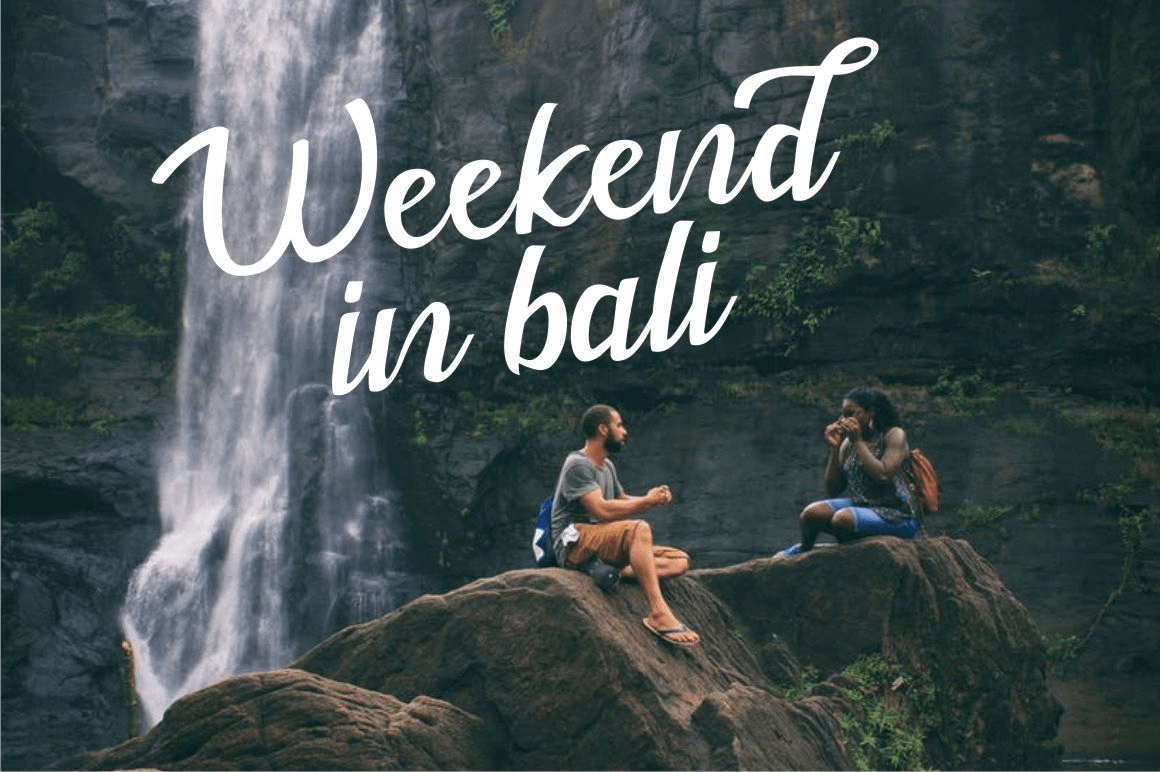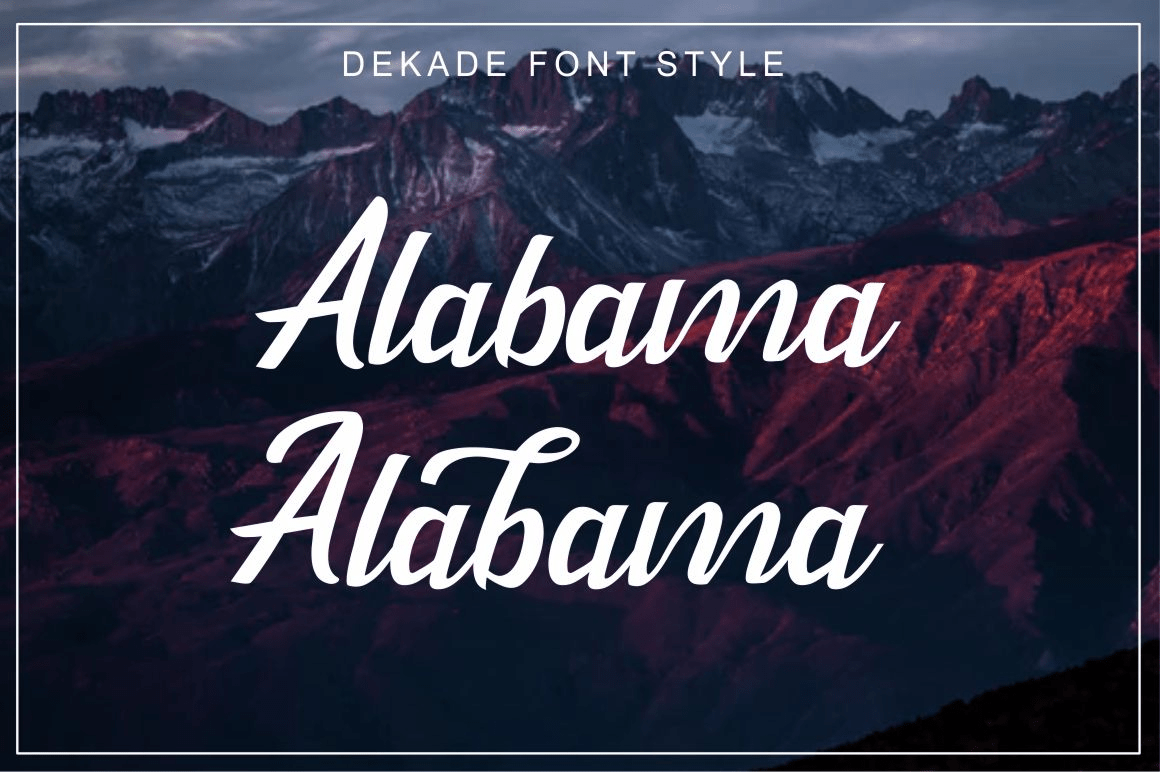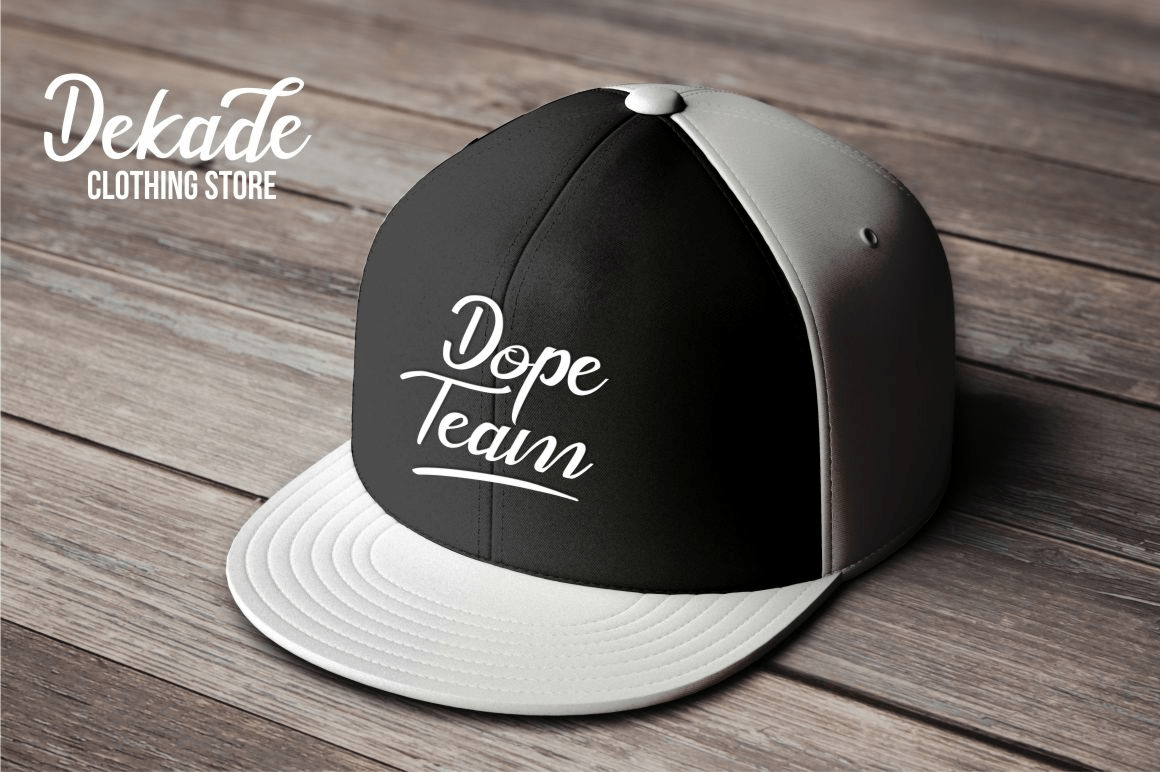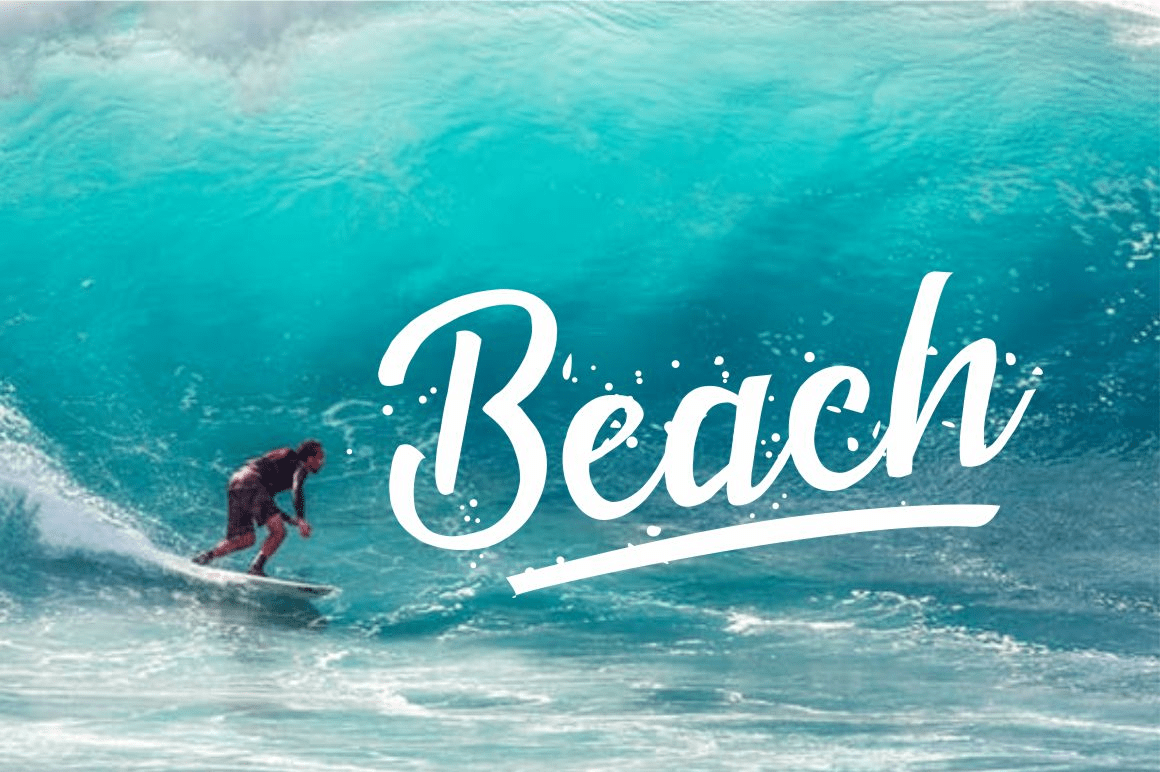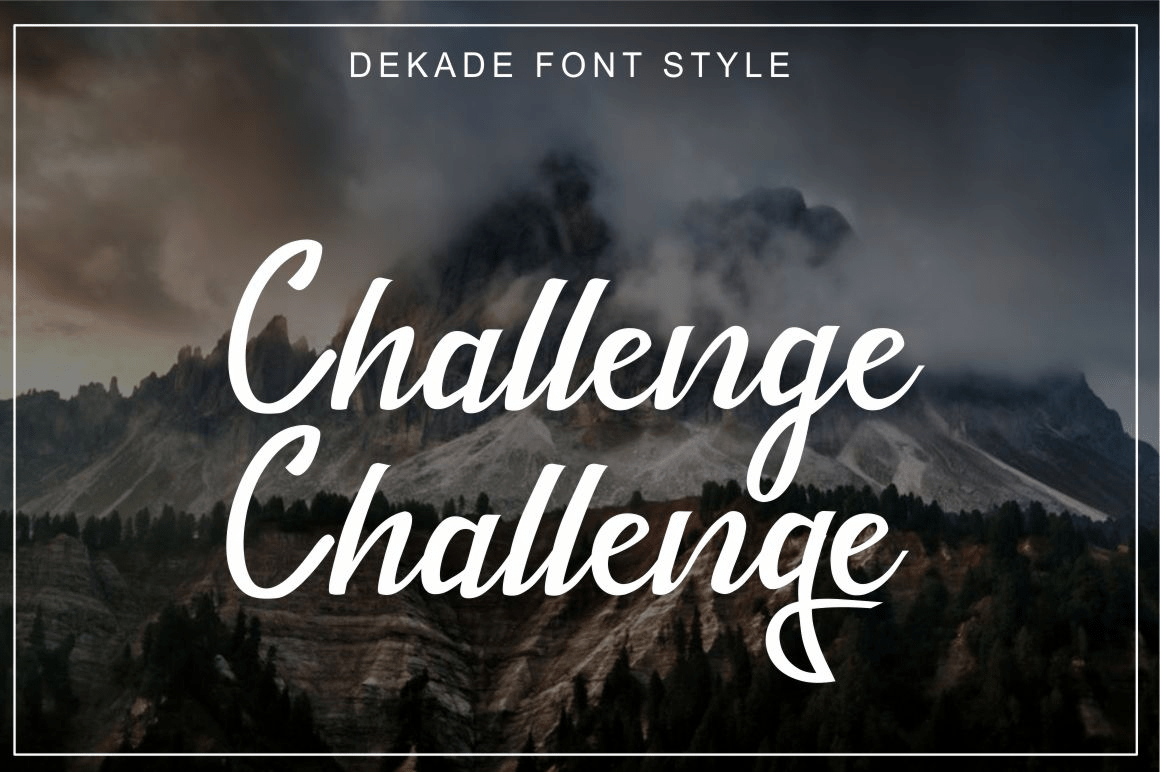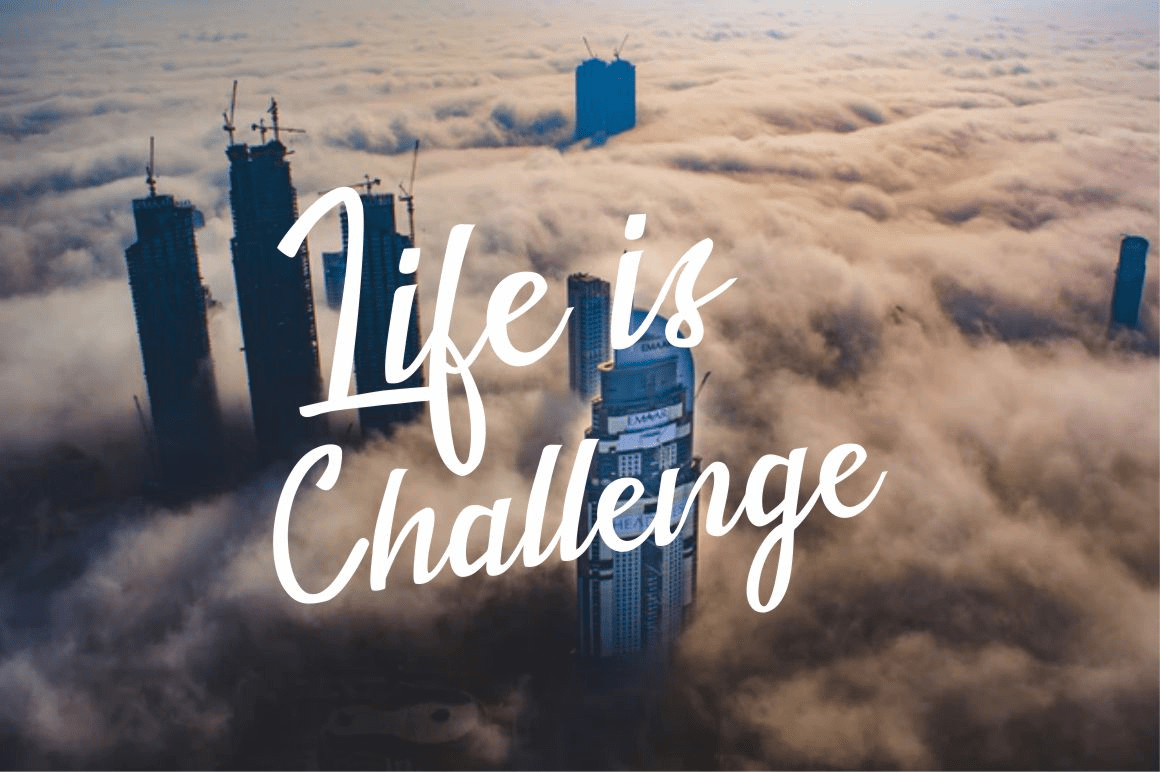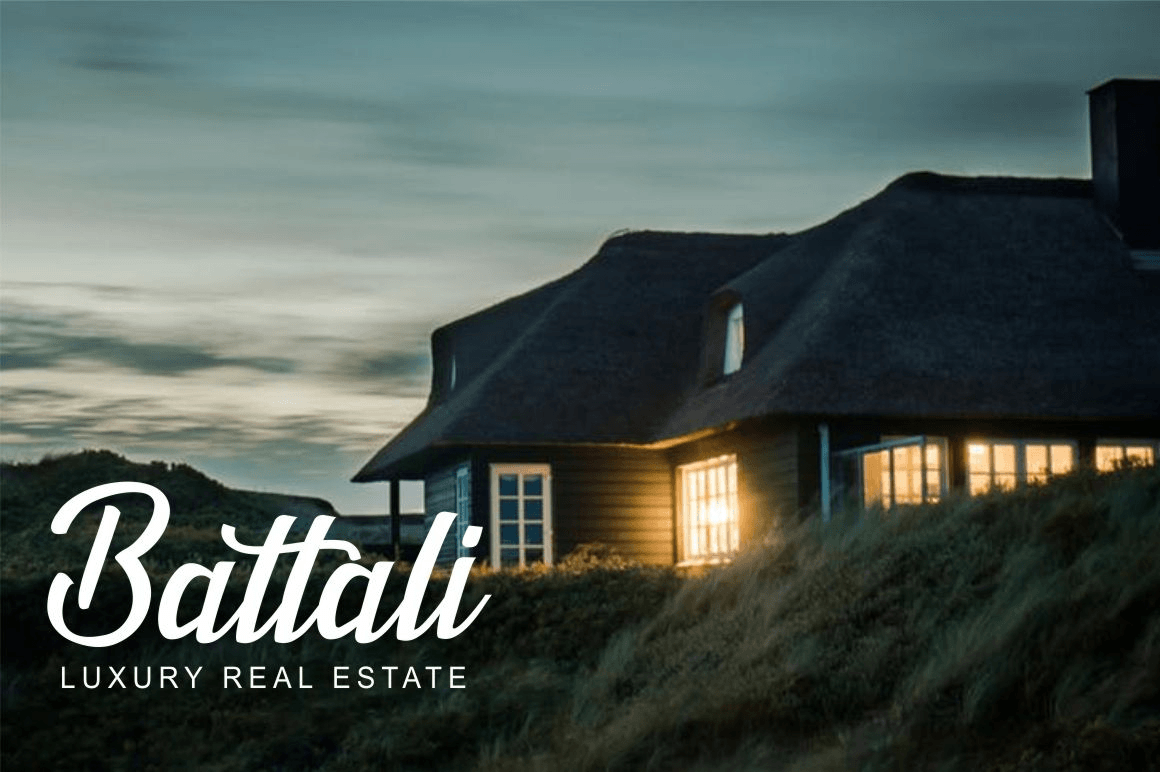
Dekade
About Dekade
Dekade Font is a beautiful handmade brush font, with a bold weight perfect for adding some romance and charm to your designs. This script functions most strongly as a display or headline font. suitable for logo, logotype, branding, fashion, label, book…